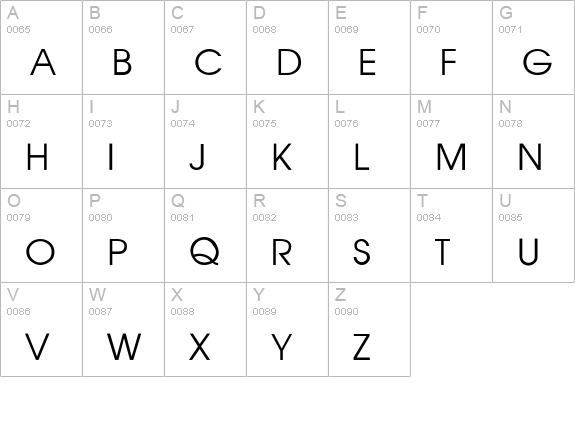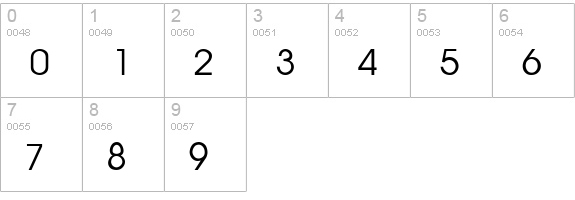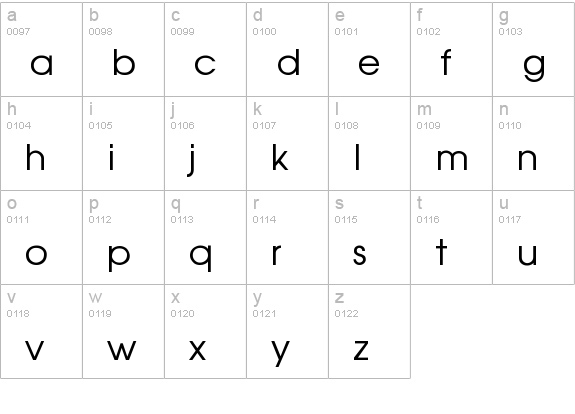
Gardenzi - Thin is a delicate, low-contrast variant in the Gardenzi typeface family \xE2\x80\x94 well suited to fashion editorial, minimal branding, and high-contrast display.
Gardenzi - Thin font is a delicate and elegant typeface that exudes sophistication and modernity. Its slim and sleek design makes it perfect for projects that require a touch of refinement and style. The thin strokes and graceful curves of Gardenzi create a sense of lightness and elegance, making it ideal for use in branding, invitations, packaging, and more. Best of all, Gardenzi - Thin font is available for free download at FontsMarket.com. This means you can easily access this beautiful font and use it in your projects without any cost. Don't miss out on the opportunity to enhance your designs with the timeless beauty of Gardenzi - Thin font. Download it today and add a touch of sophistication to your creations.